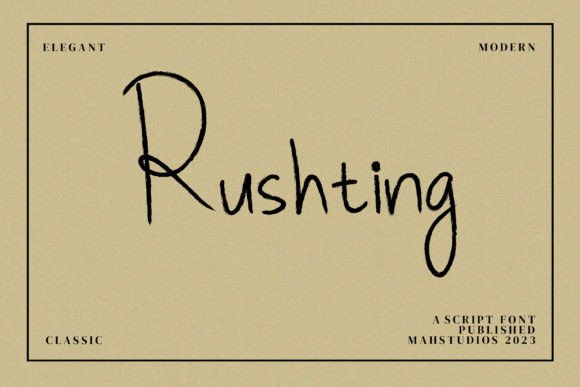
Welcome to the world of Rushting Font, a script font that dances off the page with timeless beauty and charm. Inspired by the elegance of classic typing, Rushting brings a touch of nostalgia and sophistication to your creative projects.
With its flowing lines and graceful curves, Rushting is a font that evokes a sense of longing and romance. Each letter is meticulously crafted to capture the essence of handwritten notes, inviting readers to delve into the rich emotions and memories that the written word holds.
Whether you're a designer, a blogger, or simply someone who appreciates the art of typography, Rushting is the perfect font for adding a touch of charm and personality to your work. Its versatility and timeless beauty make it an ideal choice for a wide range of projects, from logos and branding to invitations and greeting cards.
With Rushting Font, you can create designs that are both eye-catching and enduring. Its classic style transcends trends, ensuring that your work will remain relevant and stylish for years to come.
So, indulge in the enchanting world of Rushting Font and let your creativity flourish. Embark on a journey of self-expression and storytelling, and let Rushting's elegant strokes carry your words to new heights of beauty and grace.